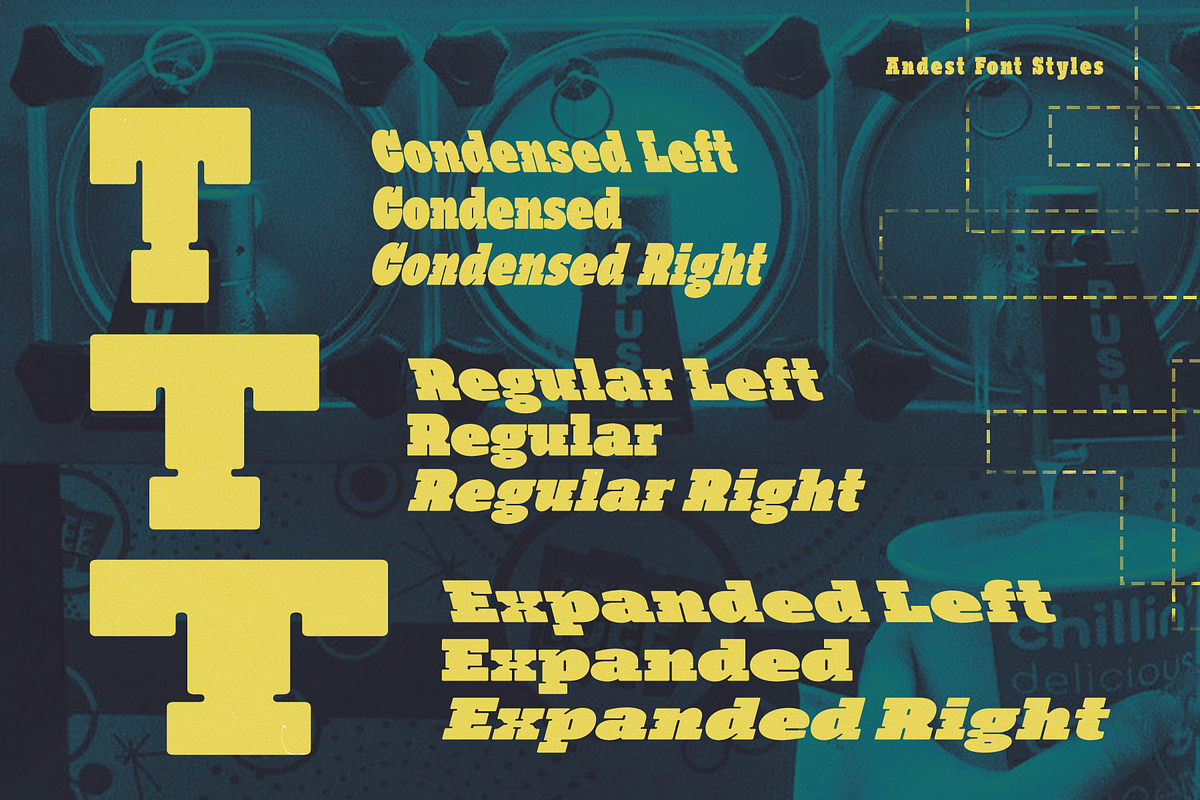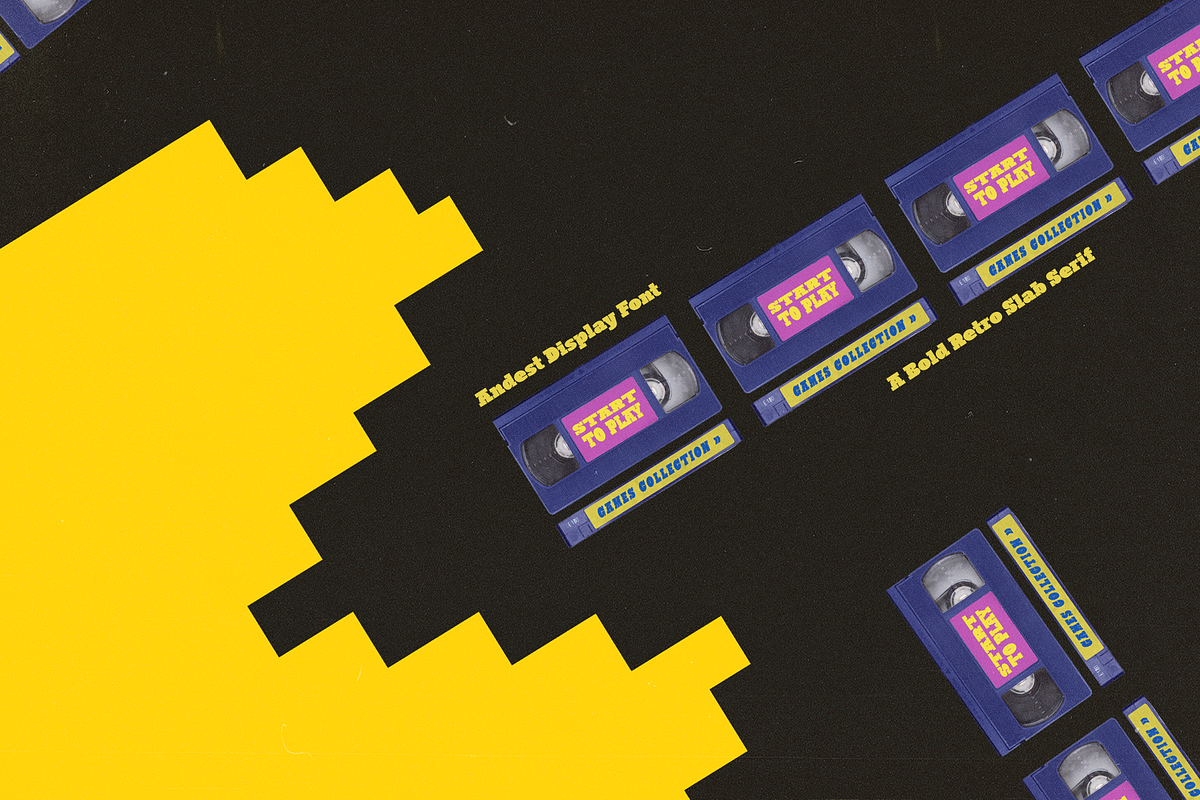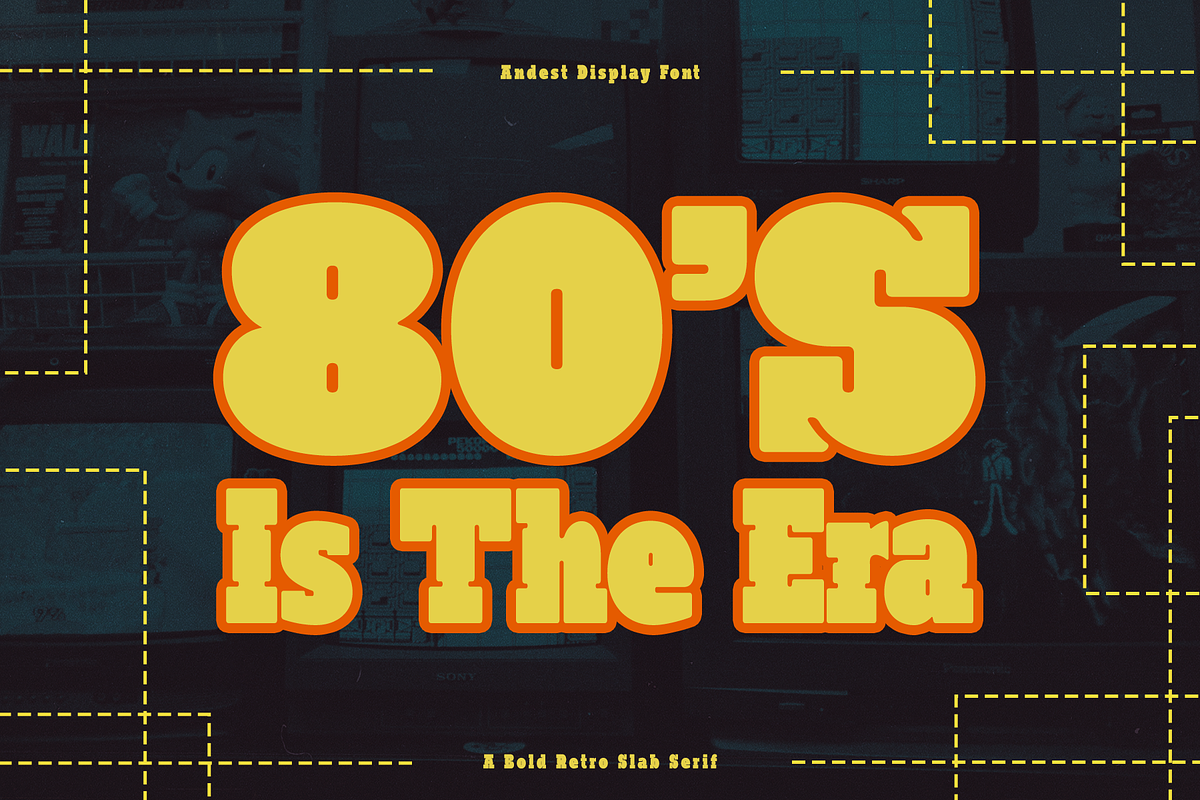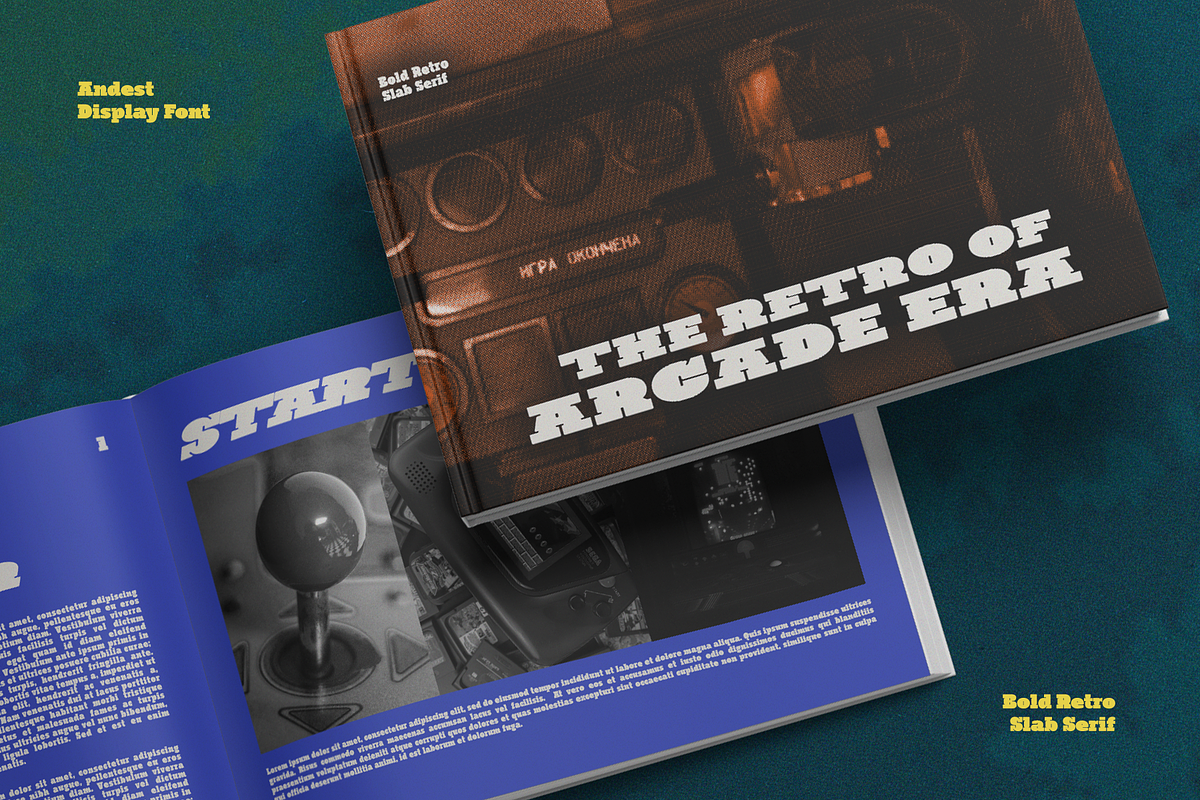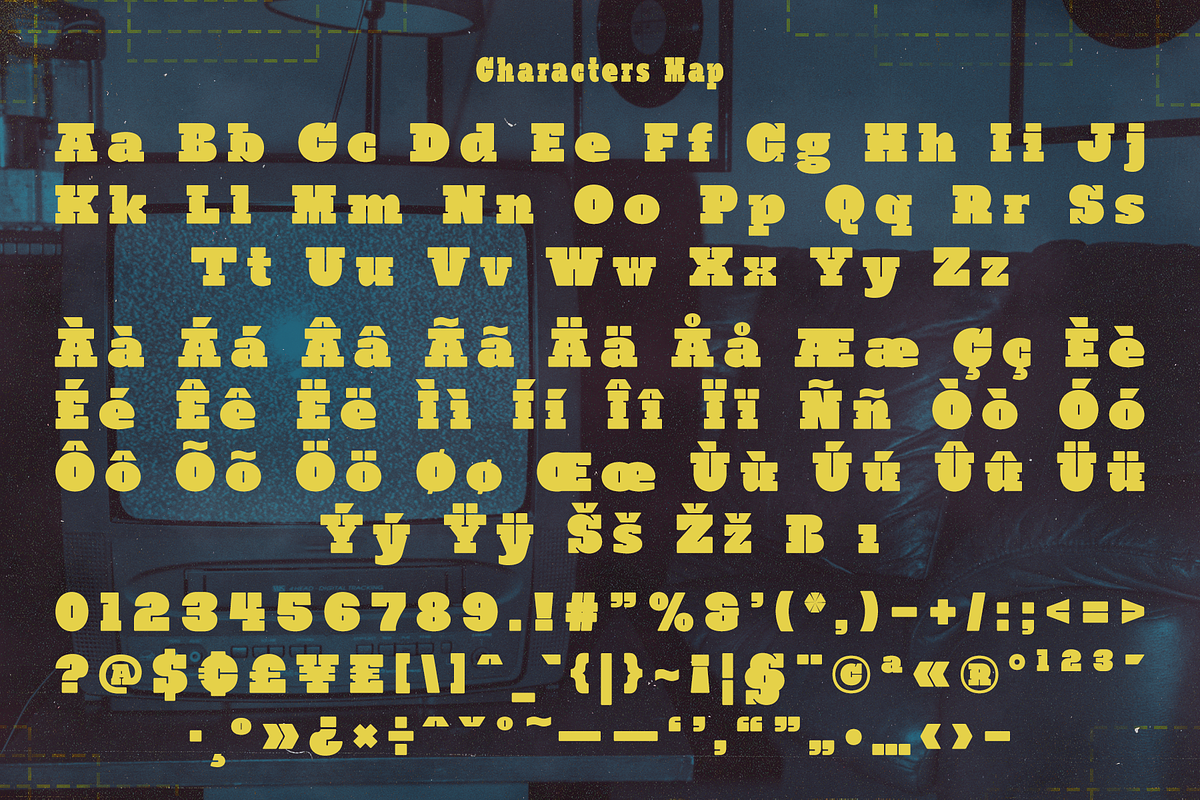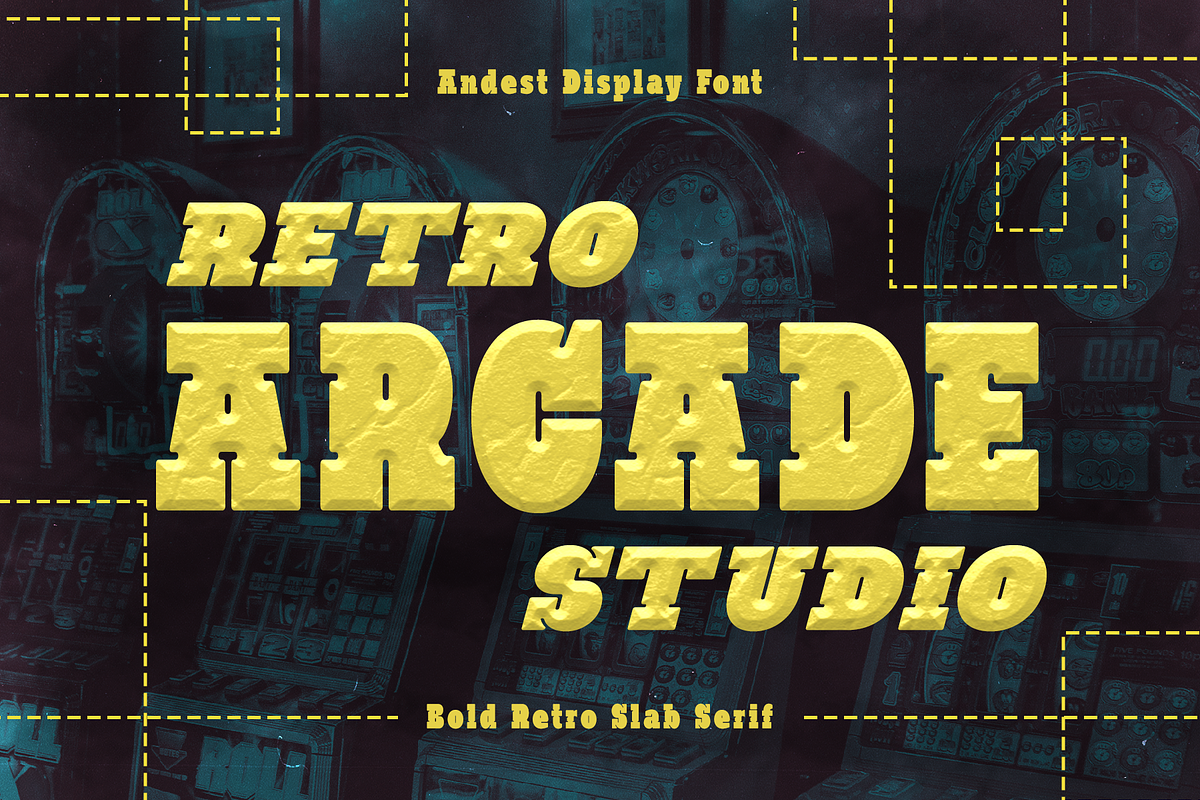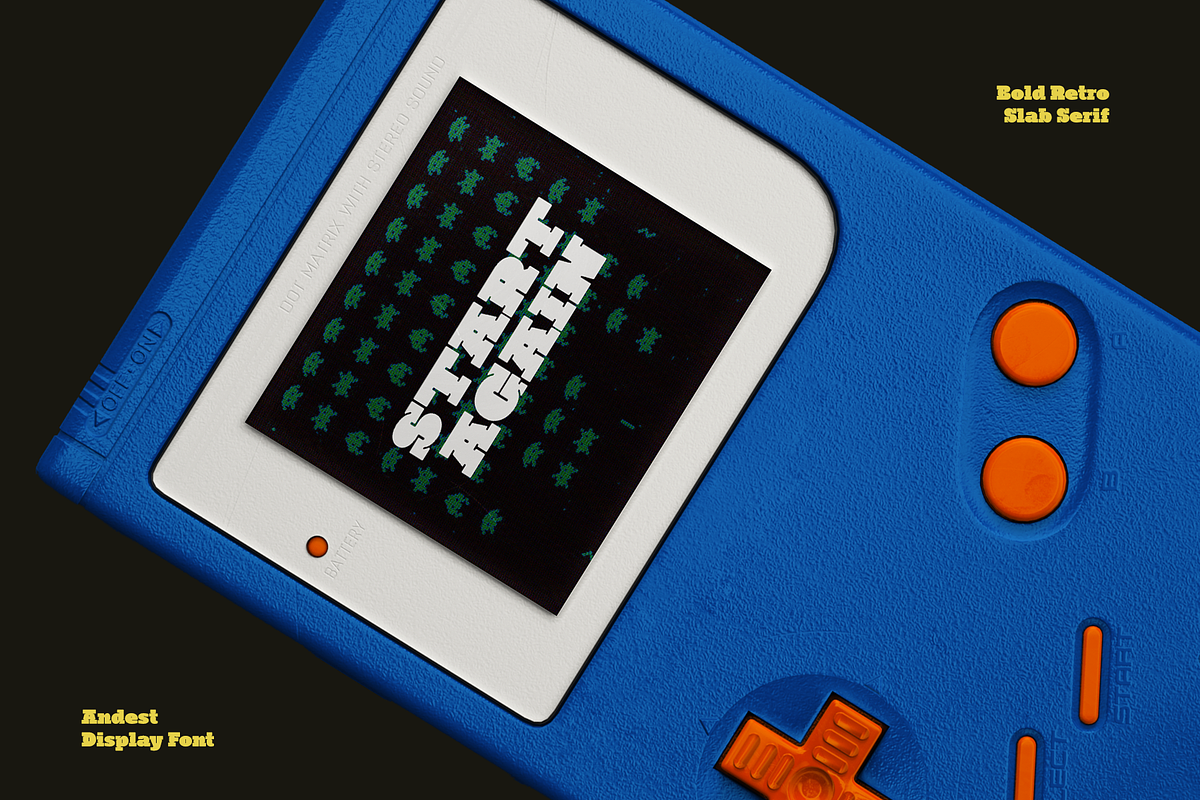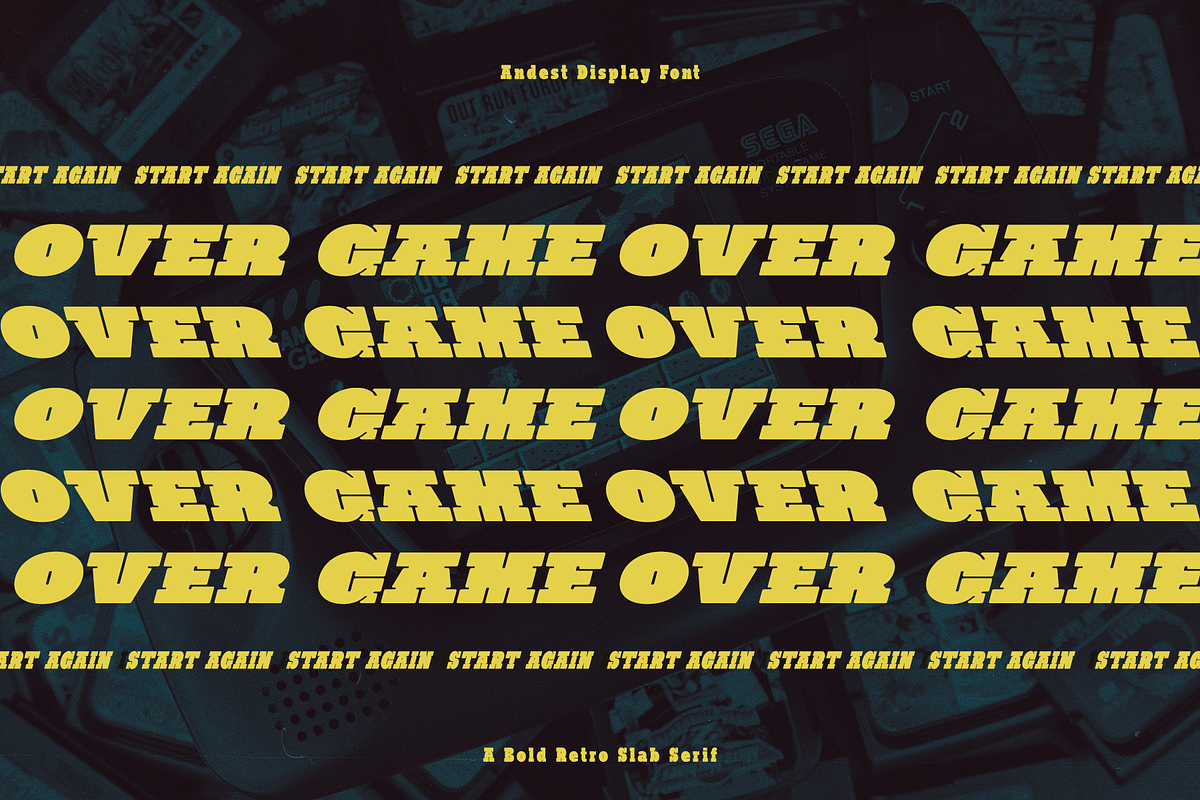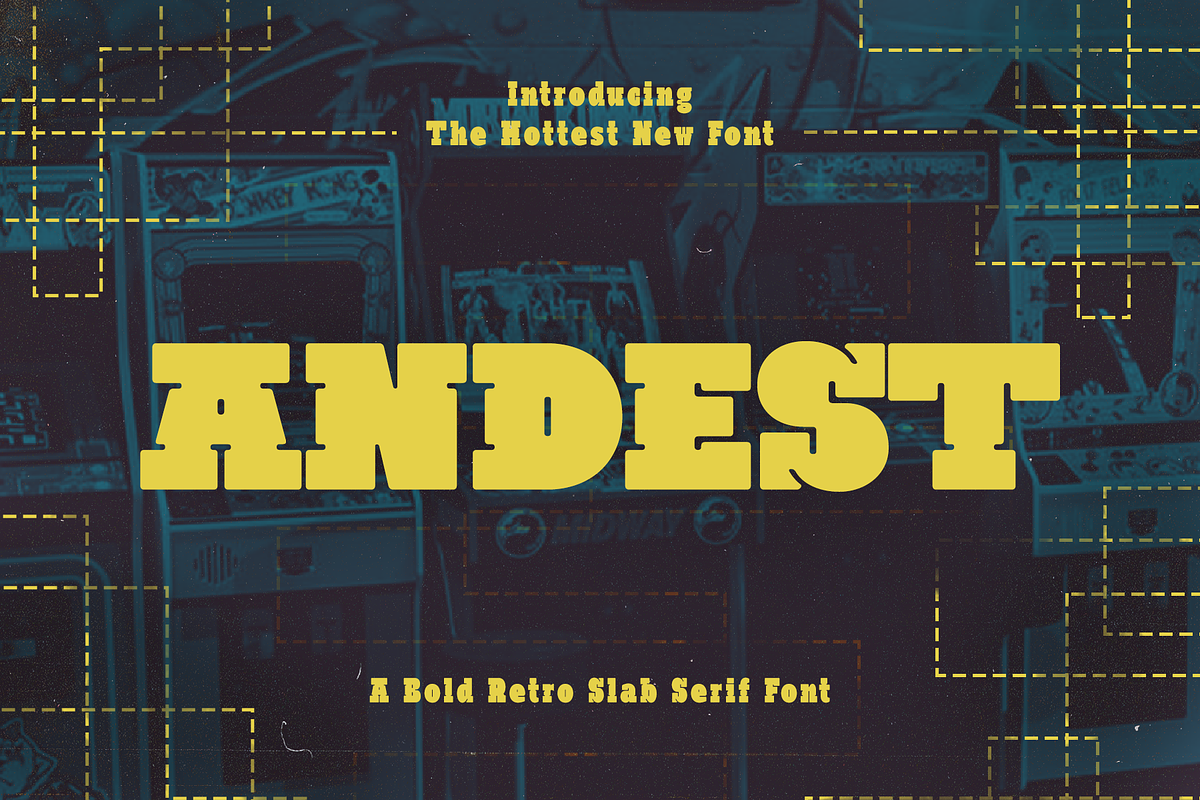
CF Andest - Retro Bold Slab Serif
Andest is a slab serif font that makes a statement with its thick, blocky letters and eye-catching ink traps. Its retro-inspired design evokes the bold typography of vintage arcade games and sports posters, while its innovative right and left italic styles add a unique twist. Andest is a versatile font that can be used for a wide variety of design projects. It's perfect for headlines, logos, branding, packaging, posters, and any design that demands attention. Its retro aesthetic makes it a great choice for projects that want to evoke a sense of nostalgia or playfulness.
- Standard Character A-Z, a-z, 0-9, and symbols
- Three Width styles: Expanded, Regular and Condensed
- Italic, Right Italic, and Left Italic